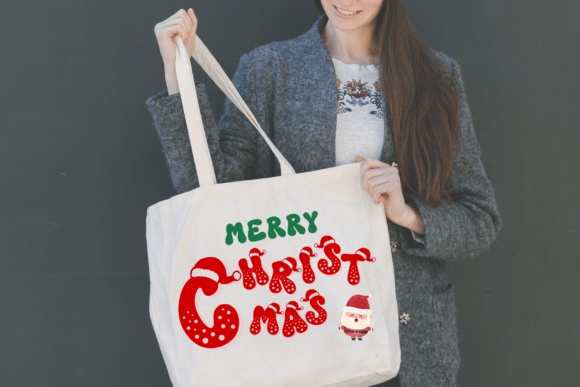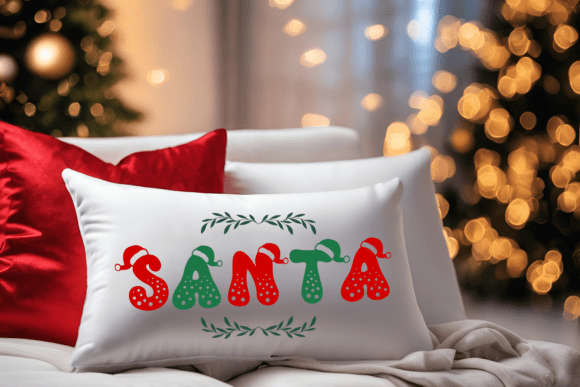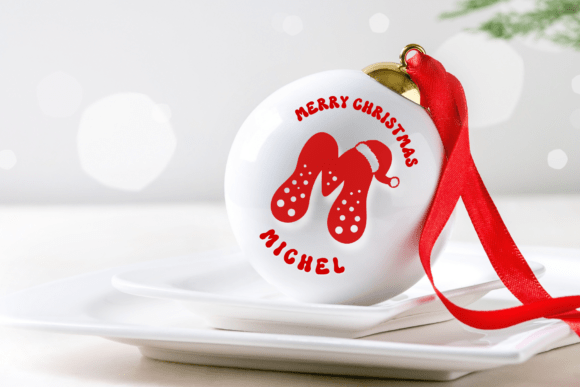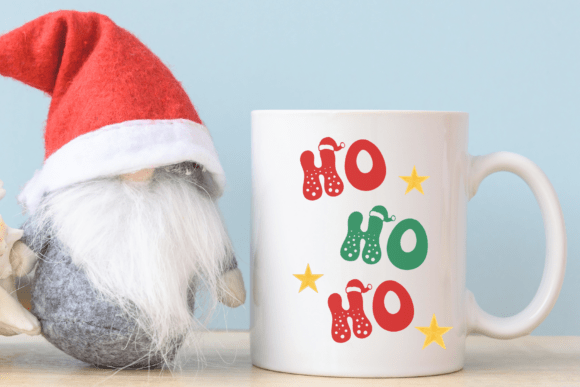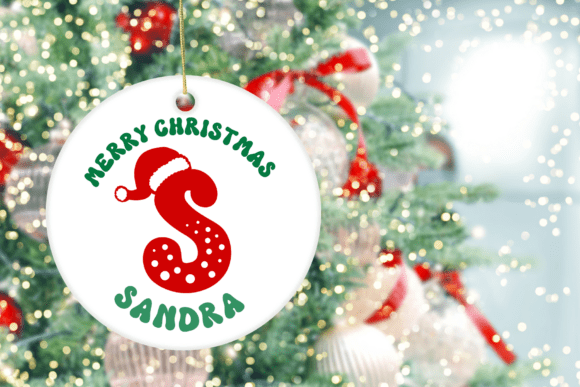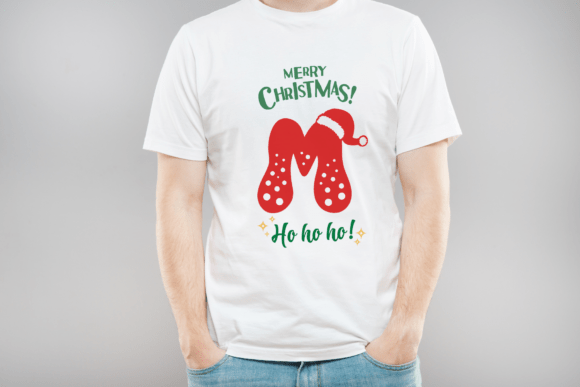
The Magic of Christmas Font: Bringing Holiday Cheer to Your Designs
As a designer, have you ever found yourself stuck in a creative rut, struggling to find the perfect font to capture the essence of the holiday season? You’re not alone. We’ve all been there, frantically searching for the perfect typography to bring our winter wonderland visions to life. And then, it hits you – the perfect font that screams “Merry Christmas” from the rooftops: Christmas Font.
This festive retro decorative font is more than just a pretty face; it’s a game-changer for designers looking to add a touch of holiday magic to their projects. With its bold shapes, Santa hat accents, and playful personality, Christmas Font is the ultimate go-to font for holiday cards, party invitations, seasonal packaging, and winter-themed crafts. Its value lies in its ability to instantly evoke the spirit of the season, making it a must-have for any designer looking to get into the holiday spirit.
Key Features of Christmas Font
- Unique Characteristics: The Christmas Font features a unique blend of traditional and modern elements, with intricate details and ornaments that evoke a festive atmosphere.
- Character Set: This font includes a wide range of characters, including uppercase and lowercase letters, numbers, punctuation marks, and special characters, making it suitable for various design applications.
Christmas Font Review
Overall, I’d say the Christmas Font has a certain charm to it, especially during the holiday season. Here are some things that work well:
- ✨ The font is playful and fun, making it perfect for Christmas-themed designs, invitations, and social media posts.
- ✨ The font has a clear and readable structure, which is great for longer text-based designs.
- ✨ The font includes a range of festive characters, such as snowflakes, holly leaves, and Christmas trees, which can add a nice touch to designs.
However, there are a few limitations:
- ⚠️ The font may not be suitable for more formal designs, such as business cards or resumes, as it can come across as too playful.
- ⚠️ The font is not as versatile as some other fonts, as it’s primarily designed for Christmas-themed designs.
Overall, I’d say the Christmas Font is a fun and festive addition to any design, but it’s not without its limitations. If you’re looking for a font to add some holiday cheer to your designs, this might be a good choice. However, if you need a more formal or versatile font, you may want to consider other options.
How can I customize Christmas Font to fit my design needs?
You can customize Christmas Font using various design applications and techniques. For example, you can adjust the font size, color, and spacing to fit your design. You can also use design software like Adobe Illustrator to modify the font’s style and create custom variations. Additionally, you can use font manipulation plugins or scripts to create unique effects and textures.